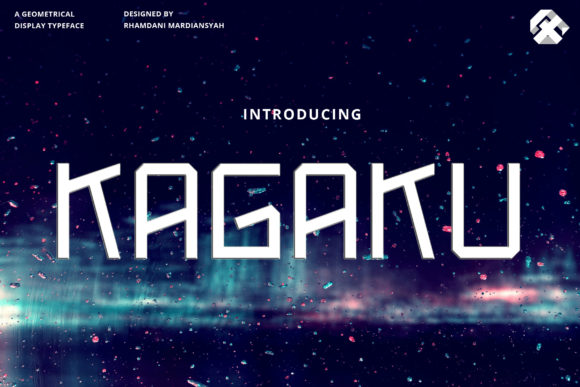
Journey into the realm of digital artistry with Kagaku, a display font that redefines the boundaries of creative expression. Inspired by the sleek lines of technology and the raw power of industry, Kagaku invites you to embark on a typographic adventure like no other.
Crafted with precision and passion, Kagaku boasts a striking geometric structure that captivates the eye. Its sharp angles and clean lines evoke a sense of modernity, while its subtle curves add a touch of intrigue. This unique blend of angularity and fluidity creates a font that is both bold and inviting, making it the perfect choice for a wide range of creative projects.
Unleash your imagination and let Kagaku transform your designs into masterpieces. Whether you're creating a captivating logo, a sleek website, or eye-catching marketing materials, Kagaku has the versatility to elevate your work to new heights. Its adaptability knows no bounds, ensuring a seamless fit in any context.
Step into the future of typography with Kagaku, a font that embodies innovation, style, and boundless creativity. Let its sharp lines ignite your imagination, and its modern aesthetic propel your designs to the cutting edge. Experience the power of Kagaku today, and unlock a world of typographic possibilities.